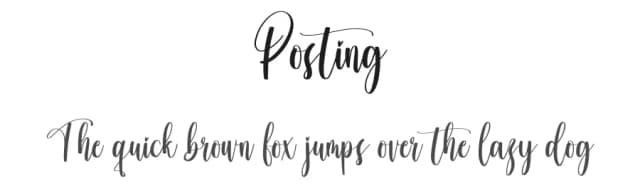
About Jhonate Font
Jhonate Specifications
| Font Family | Jhonate Demo |
| Full Name | Jhonate Demo |
| Glyph Count | 67 glyphs |
| Designer | Sarah Suci Pauziah |
Jhonate ships with 1 OpenType feature you can switch on in apps that support them (Illustrator, InDesign, Affinity, Figma, CSS font-feature-settings).
Jhonate supports 168 languages.
Jhonate Font is a script font that shines as a display or heading face. Pair it with a clean sans-serif or serif font for body text β the contrast creates a clear hierarchy while the two styles stay balanced and easy to read.
Jhonate Font